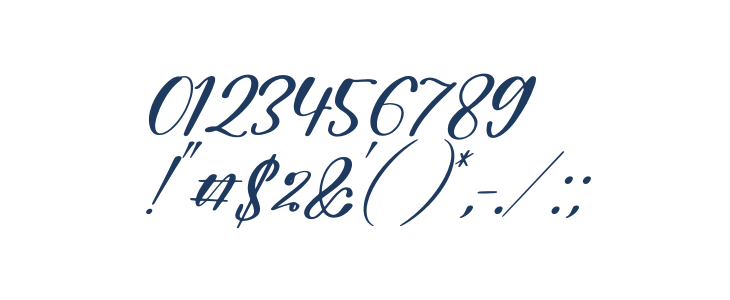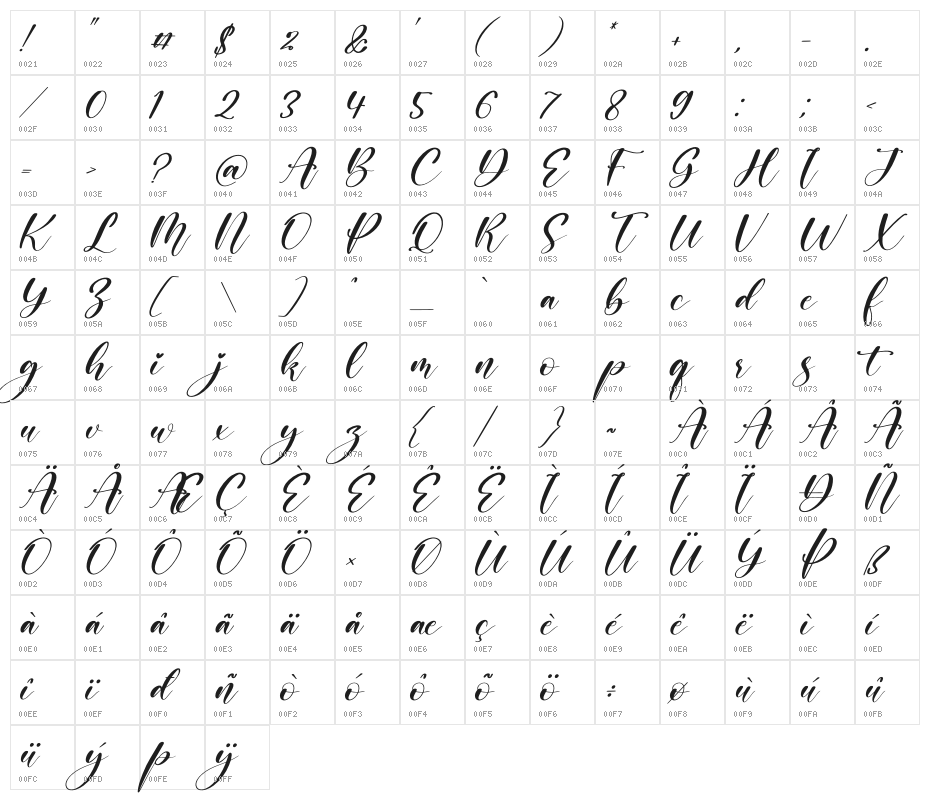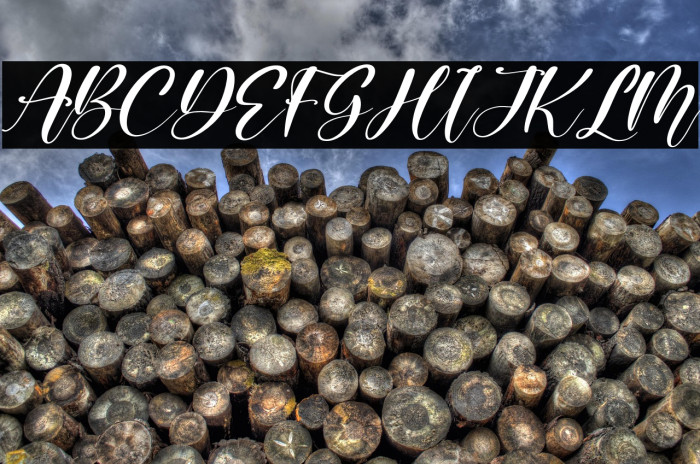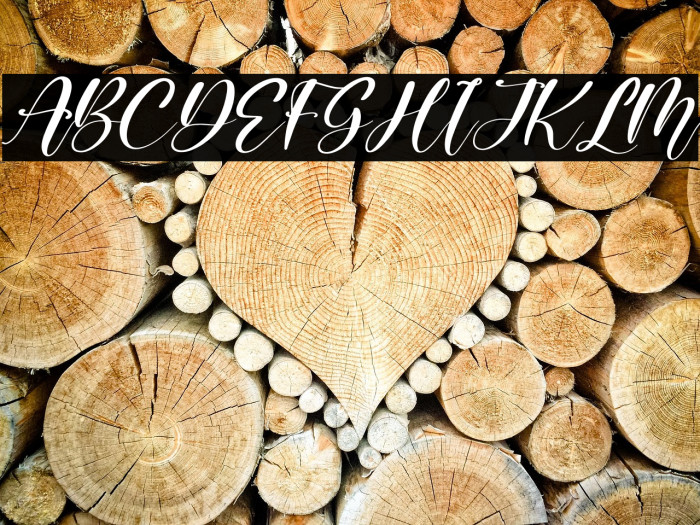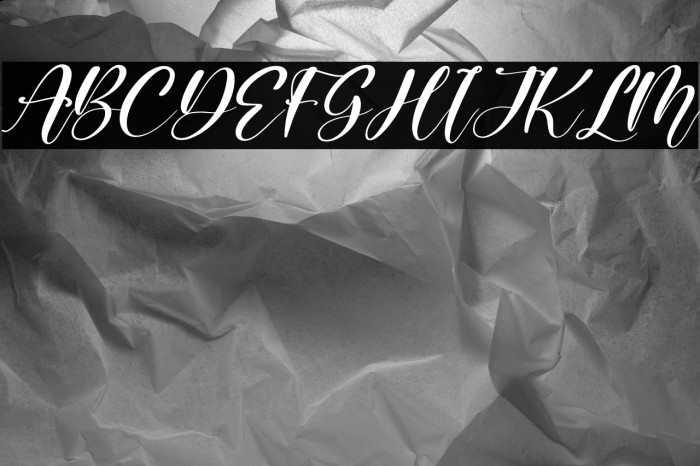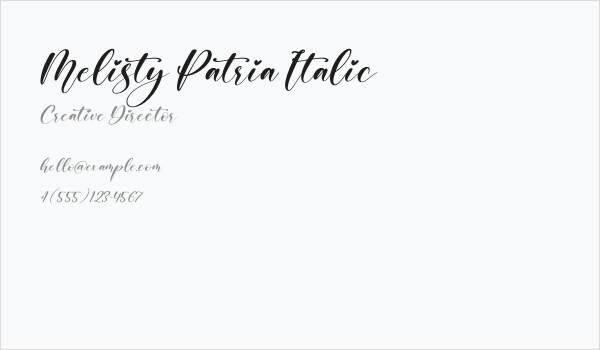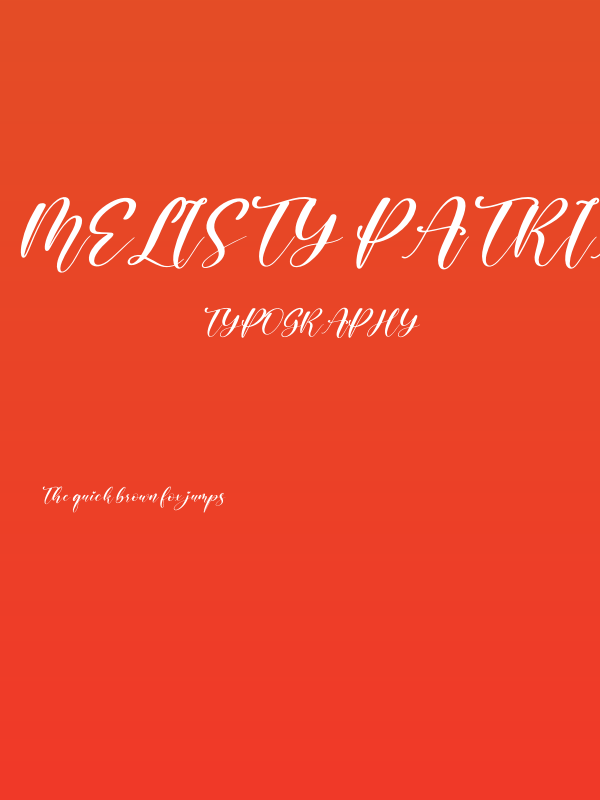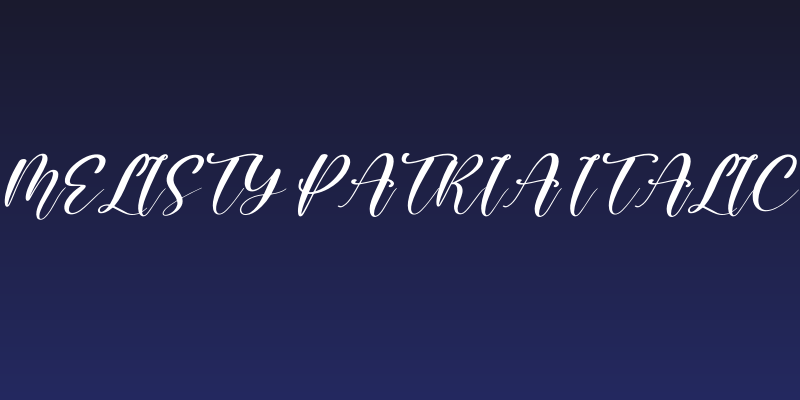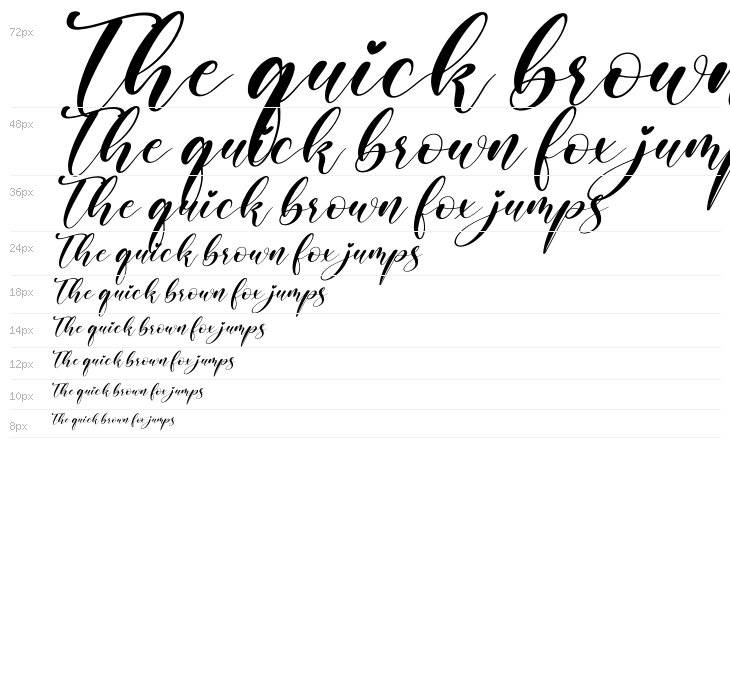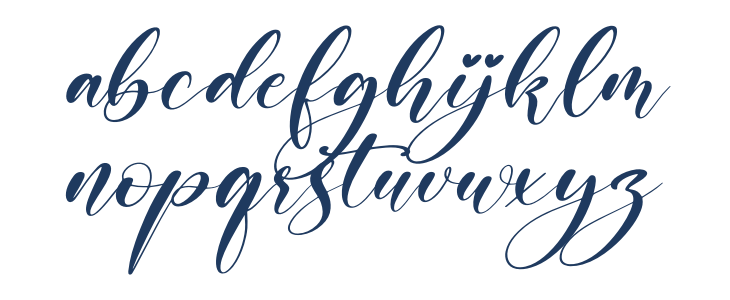
Melisty Patria Italic Font
Melisty Patria Italic Description
This elegant script font features flowing, cursive letterforms with a sophisticated flair. The uppercase letters are characterized by their sweeping curves and graceful loops, while the lowercase letters maintain a consistent fluidity that enhances readability. The numerals are stylishly integrated, maintaining the font's overall aesthetic. Special characters are thoughtfully designed to complement the script style, making it versatile for various applications. The font's italic nature adds a dynamic and expressive touch, perfect for creative projects requiring a personal and artistic feel.